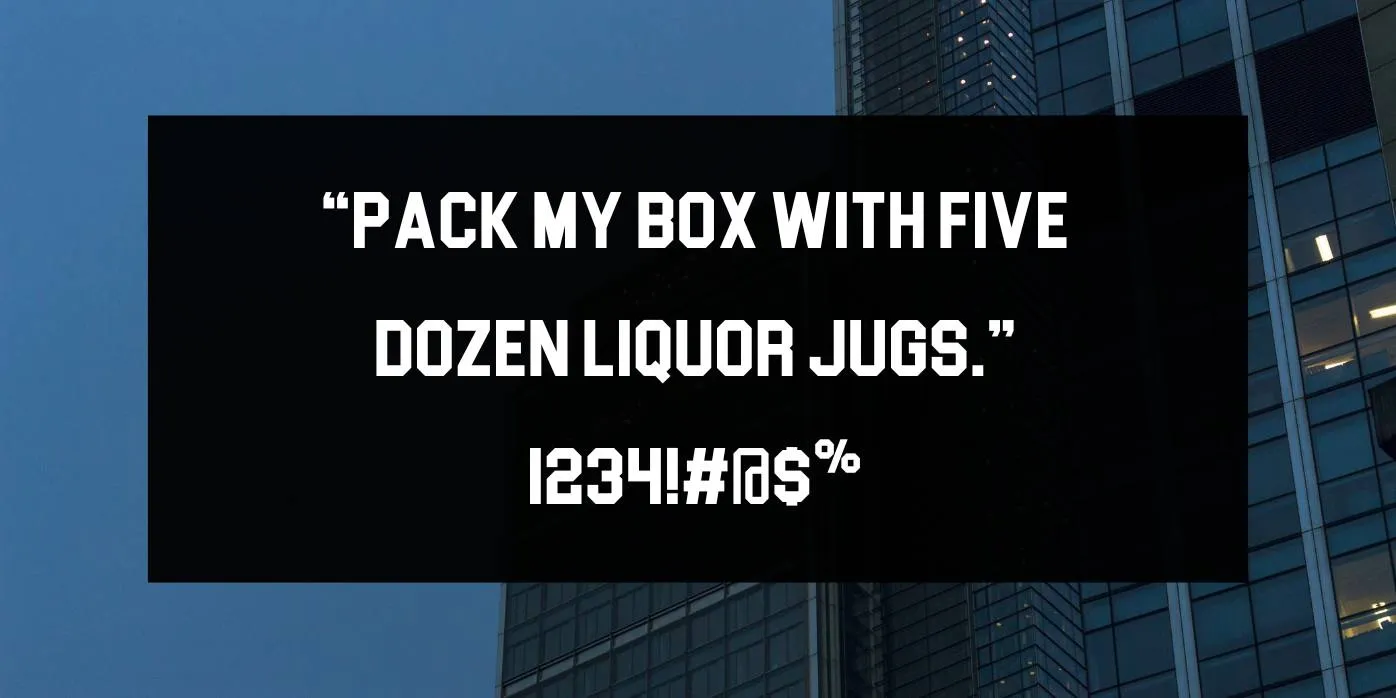
Block Letter Font is a bold and legible typeface that can elevate your project or design and make it stand out. This awesome font has its place in the Sans-Serif font family designed by Dennis Ludlow and released by Shark Shock.
This typeface has a neat and clean appearance that can create your design more attractive and understandable. Due to its clarity and legibility score, it is the top option for several inventors. Designers, and creators who want to make their presentation/design/project extraordinary.
Block Letter Font Weights & Styles
This typeface is based on the now-defunct Blockbuster Video logo, it also looks like the Hollywood signs, army lettering, and collegiate apparel writing. This font also has inflexible angles and loads of traditional lines.
This typeface comprises 4 different weights Regular, Outline, Tall, and 3D. The Regular weight is available for personal use only and the other three are available in a purchased license. This font style has only all caps, basic punctuations, European accents, diacritics, and kerning.
Role of Block Letter Font in Graphic Designing
Typography is an important part of a project that affects both attractiveness and availability. If you are creating an ad, headline, header, or display, and you want to make it attention-grabbing and excellent then this font can perform an important role for you.
This font can make it legible and stand out. You can apply it in large and small body copy or text, this font is perfect for symbols, headings, posters, and banners, its thicker strokes make it elegant and graceful.
Summary
This typeface is versatile typeface take can play a significant role in any type of display or project. You can use this font in the making of signage, logos, titles, headlines, billboards, reports, documents, etc. This font is a good option for marketing purposes and business plans.